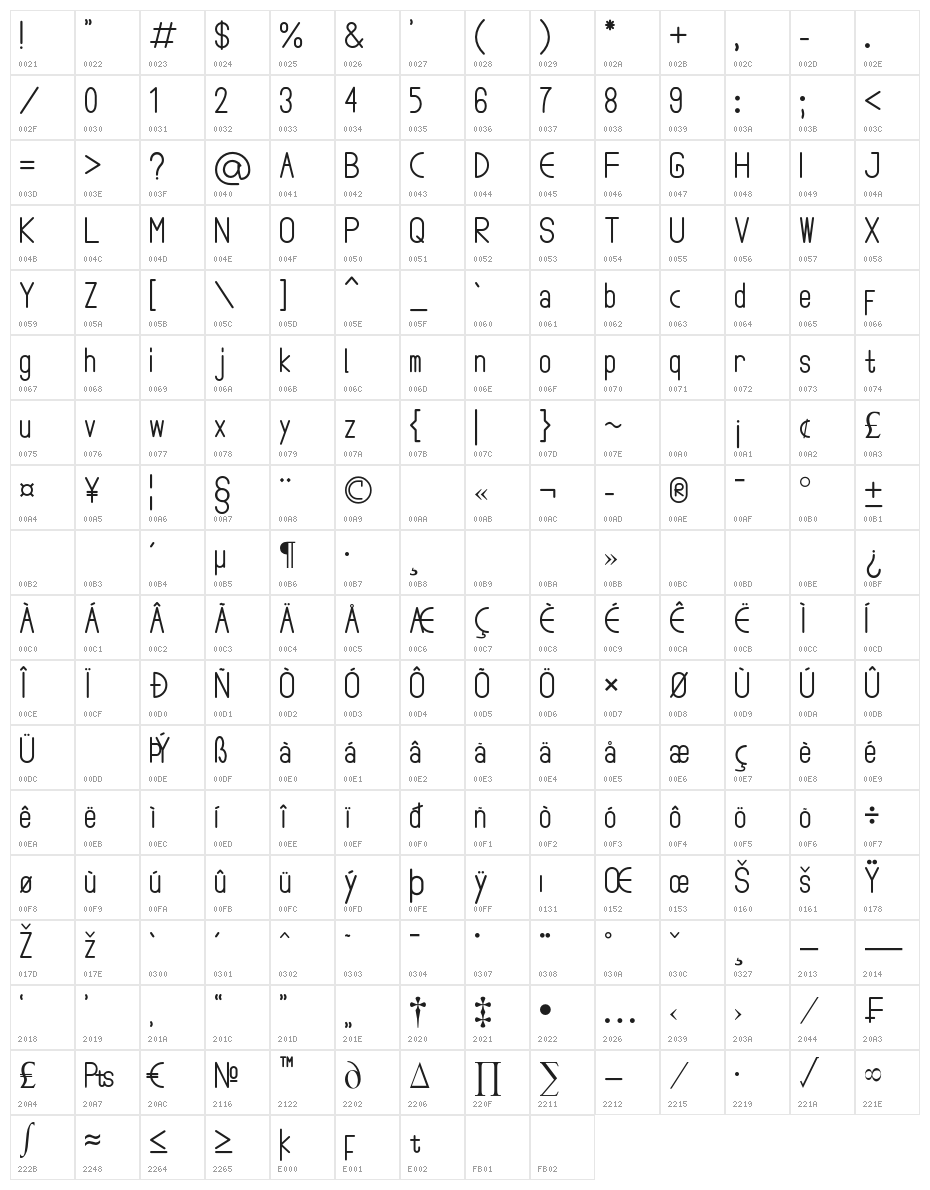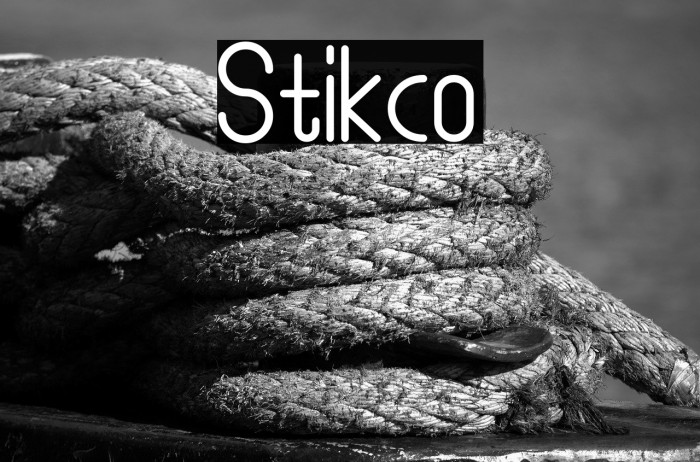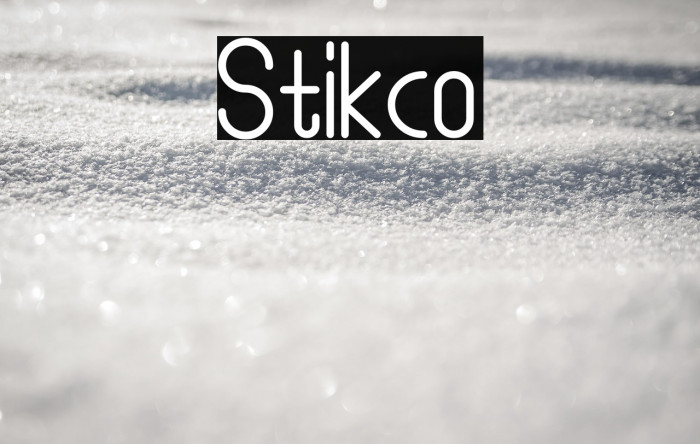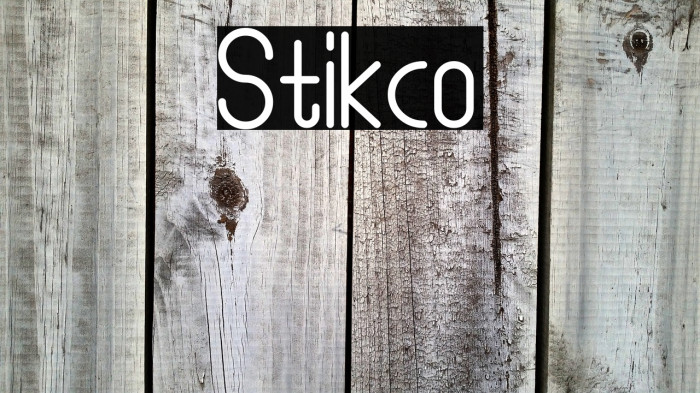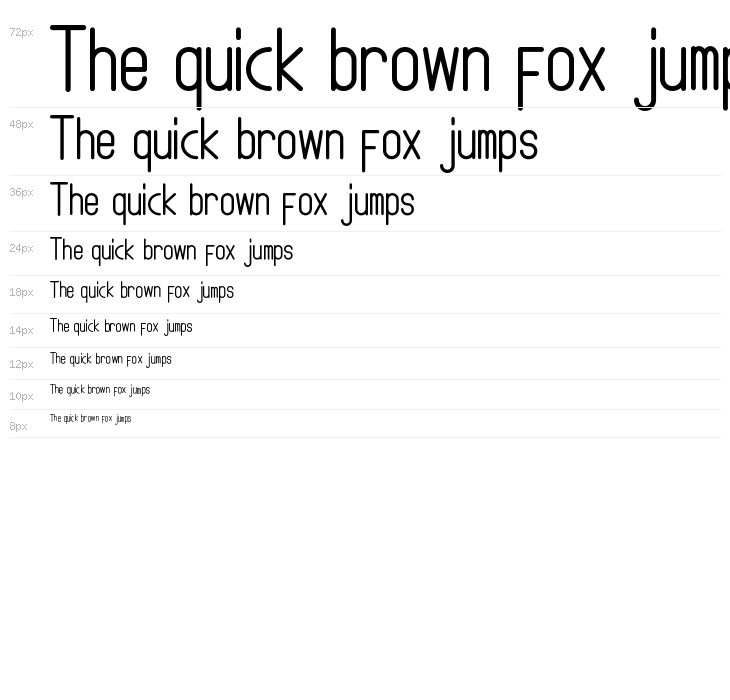
Stikco Font
Stikco Description
This font features a clean, geometric design with rounded edges, giving it a modern and approachable feel. The uniform stroke width across all characters contributes to its minimalist aesthetic, making it versatile for various applications. Uppercase and lowercase letters maintain a consistent height, enhancing readability. The numerals are clear and distinct, while the special characters are well-integrated, maintaining the overall style. This font's simplicity and clarity make it suitable for both digital and print media.